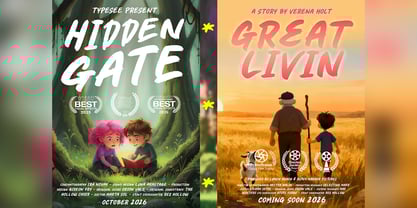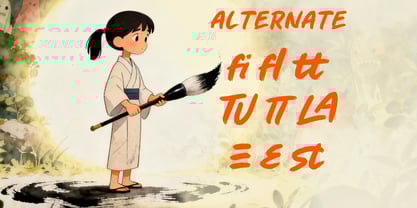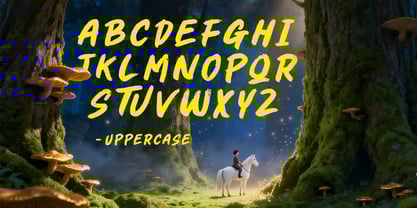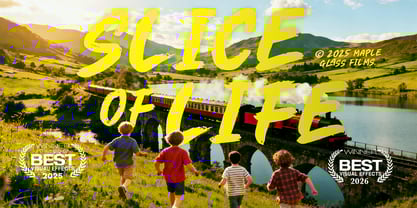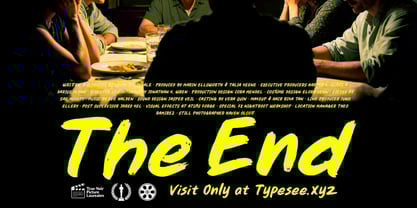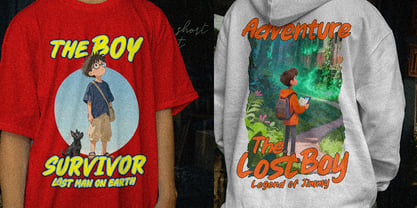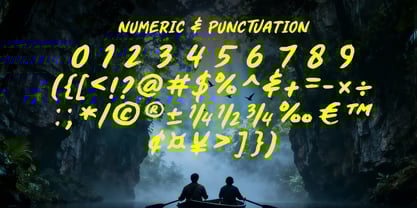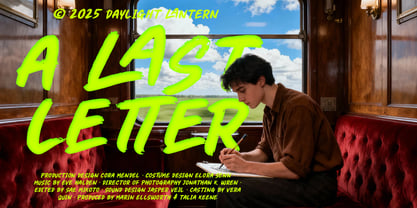
Wayfarer
by Typesee
The Wayfarer Font Family was designed by Rizka Prayuda, Muhammad Mirza Azhmi and published by Typesee. Wayfarer contains 1 styles.
Wayfarer is an expressive brush display font crafted for cinematic storytelling. With its organic strokes and energetic texture, it brings life to titles and visuals inspired by journeys, self-discovery, and heartfelt adventures. Designed for movie posters, travel documentaries, and editorial layouts, Wayfarer captures the essence of motion and emotion. Its handwritten form blends power and warmth, making it ideal for projects that seek to connect visually with audiences through authentic and adventurous tones.